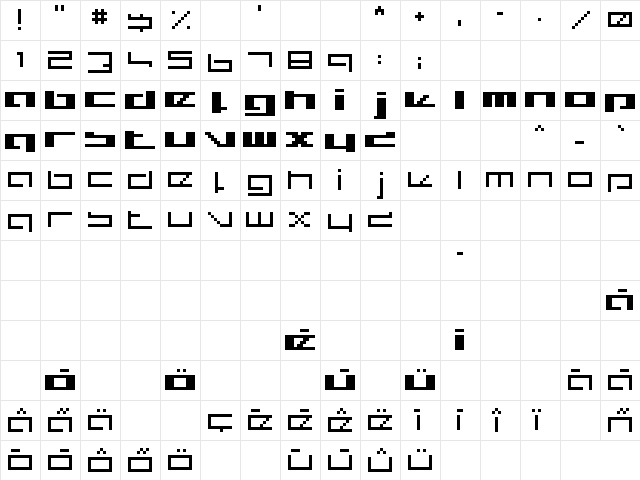
royal simplicity Regular
Design Context for royal simplicity Typeface
royal simplicity is a composed and adaptable typeface that performs quietly and consistently across a wide range of design contexts.